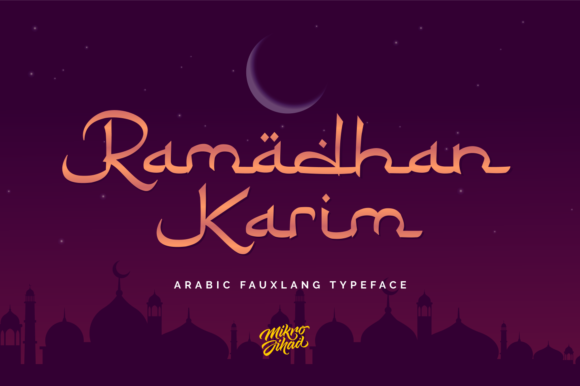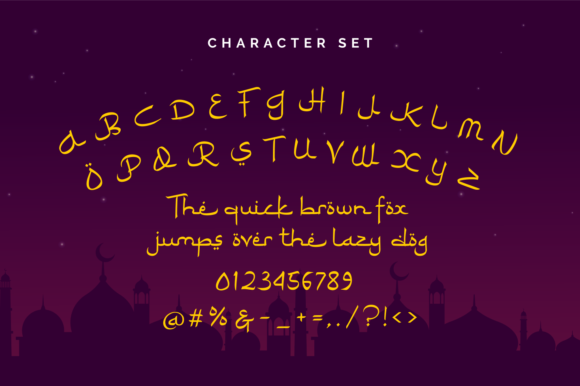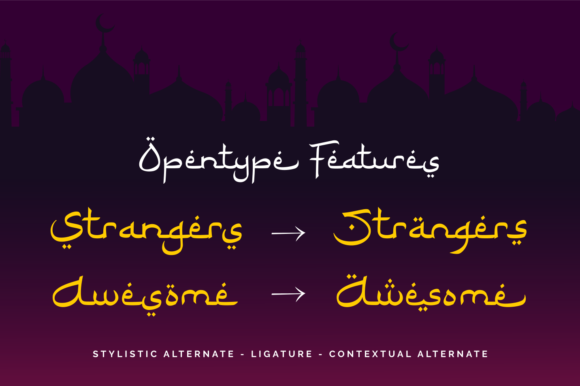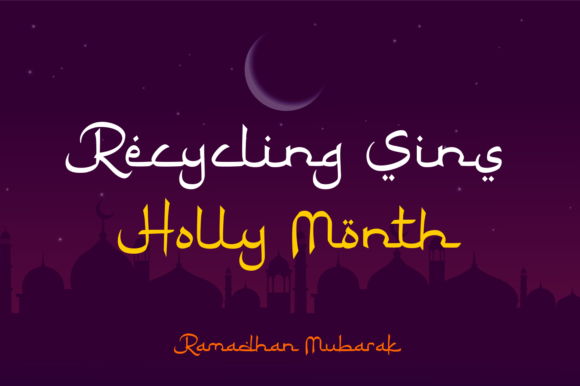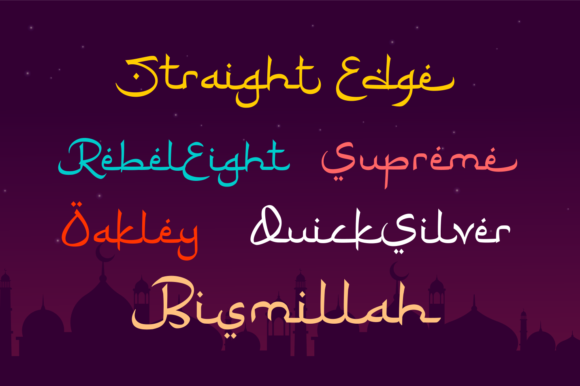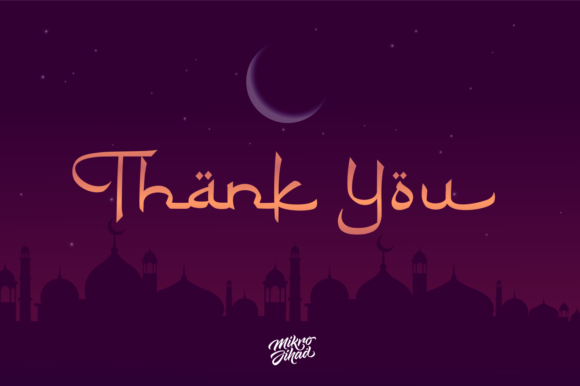
Script Fonts Ramadhan Karim Font 0 151 FacebookTwitterPinterestWhatsApp Ramadhan Karim Font Poster 2 Ramadhan Karim Font Poster 3 Ramadhan Karim Font Poster 4 Ramadhan Karim Font Poster 5 Ramadhan Karim Font Poster 6 About Ramadhan Karim Font Ramadhan Karim is inspired by Arabic culture and all things middle east. It will put a fun and bold spark on any design idea! DOWNLOAD NOW